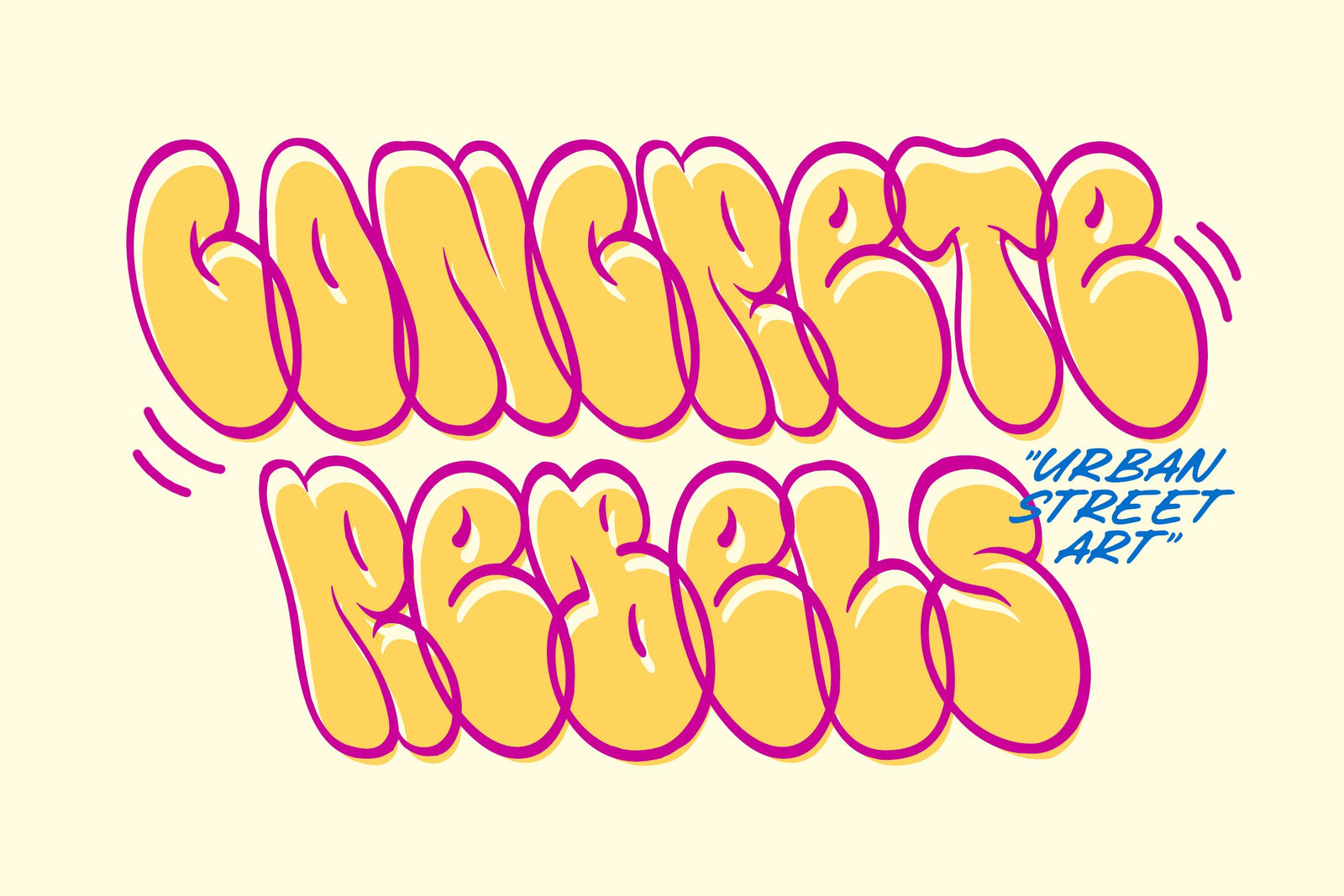
You drop eight graffiti font downloads into a merch mockup for a client who briefed you with the words "graffiti energy," and the second the type shrinks below poster size, half of them collapse into a grey smear. The interlocking bits fuse. The drips clot. Whatever read fine on a wall at two metres turns to mush on a phone screen and a stitched apparel tag. Nobody runs that test before downloading, because most graffiti font content online, the generator tools and the dafont-style dumps and the endless stock listicles, treats "graffiti font" as one flat dropdown filter.
It was never one thing. Graffiti lettering splits into registers that come straight out of writing culture, and each has its own relationship with legibility once it leaves the wall. Bubble and blockbuster letters are simplified and forgiving. Marker and tag scrawl is a signature moving at speed. Wildstyle is a puzzle built to be decoded. And the mural and Chicano tradition sits closer to script than to spray-can tagging. Sort your options by that first, before you sort by which one looks coolest, and you avoid the grey smear entirely.
Bubble / blockbuster: the pick that survives shrinking
If you need a graffiti font that holds up at merch-tag size, an app icon, or a social tile in a busy grid, start here. The letterforms are rounded, simplified, and consistent by construction, so there's very little fine detail to lose when the type scales down. This is the safest professional register in the whole family.
Bombify from Blankids leans on chunky curves with the weight of a fat cap throw-up. Fill it flat for a small logo lockup, or run an outline of it over a photo back-print where you want the letterforms to read as a frame rather than a solid mass.
Koplexs Studio built Coem around fluid, rounded proportions that wobble away from a tidy grid, pulling as much from psychedelic and retro poster lettering as from graffiti. It's a single expressive style, and the creator is upfront that it wants to be big. Set it as the hero word on an album cover or a gig poster and let the curves breathe; this is not the one you want at caption size.
The deepest toolkit of the three is Casloop Studio's MOMO TOMO, which arrives in three styles, Regular, Inline and Shadow, each delivered as OTF, TTF, WOFF and WOFF2 with upper and lowercase, two stylistic alternate sets, and multilingual support. The web font formats matter if you're building type into a landing page or a video overlay, and the Shadow cut gives you a ready-made drop without you faking one in a mask. Good bones for a streetwear label that needs one wordmark to work everywhere from a woven tag to a hoodie chest print.
Marker / tag: an accent, at real scale
This is the fastest and most personal graffiti register, a hand moving at speed and leaving a signature behind. On screen it earns its keep as a single word set large, a headline, a signed-off flourish. Ask it to carry small body copy or letter-by-letter reading and the stroke wobble that makes it good is the same thing that makes it illegible.
Enxyclo Studio pitches RIGHMAN straight at branding work, and the marker construction backs it up: a raw, imperfect handdrawn build in OTF, TTF and WOFF, with upper and lowercase, punctuation and a symbol set included. Use it the way the creator intends, as a logo or a festival poster headline, where a fat felt-tip stroke doing something a little off-register reads as attitude instead of error.
Rougher and more painted at the edges, Hella Punk from Jolicia Type carries DIY-poster and hand-painted-sign energy, the kind of lettering you'd expect flyposted around a venue. Its bold, expressive letterforms suit a stacked show poster or an underground zine cover where you want one word to hit hard. If you like this end of things, we've got more streetwear lettering worth a look, and our notes on hand-drawn branding fonts cover why imperfect strokes read as human.
Mural / Chicano lettering: give it room
Fluid, ornamental, script-adjacent, this register is rooted in West Coast letter and mural culture, a world away from a quick spray-can tag. The curves are drawn with the confidence of a one-line pen stroke and finished with sharp terminal flicks. Everything about it wants scale: a back-print, a poster, a full spread, rather than a favicon.
Craft Supply Co's CS Emperor is built for this exactly, combining fluid curves with sharp angles in a form that leans directly on Chicano graffiti and mural lettering. Set it large enough to see the pen logic in the strokes and it sings across an apparel back-print, a poster, or an album cover.
Wildstyle: texture, backdrop, one big word
Interlocking arrows, exaggerated connections, letters engineered to be decoded before they're read. In the original culture that difficulty is the whole point, only another writer can crack another writer's piece, and any font in this register carries that DNA. On screen it works as texture, a backdrop layer, or a large single-word wordmark where nobody needs to parse individual letters at working size.
Take Roomspace Creative Lab's Brexh: chunky, angular forms with tight kerning that pushes the letters into each other, exactly the density wildstyle trades on. It's built for large-scale display. Stack it tight as a distressed graphic across the front of a tee, or blow one word up as a poster backdrop and let a cleaner headline sit on top of it.
These are handmade letterforms from named independent type designers, and you can see the hand in every one of them. The fat felt-tip drag in RIGHMAN. The pen-line confidence and terminal flicks in CS Emperor. The blade-cut corners in Onarki, the packed spray-can weight in Brexh, the drawn-not-generated wobble in Coem's curves. A generic bubble-outline font flattens all of that into vector sameness with no trace of a tool or a wrist behind it. Pick the register that matches your deliverable first, then pick the hand you want in it. If you're weighing up more expressive display type generally, our run through retro fonts across every era sits in the same neighbourhood.